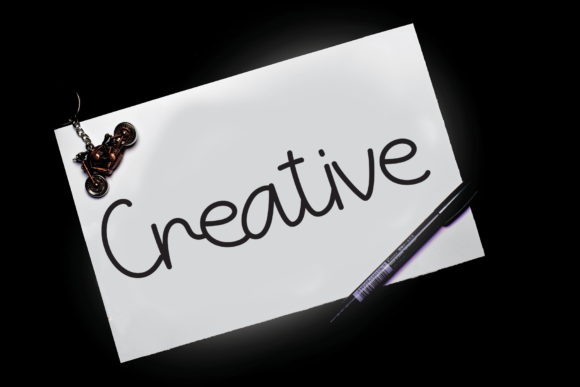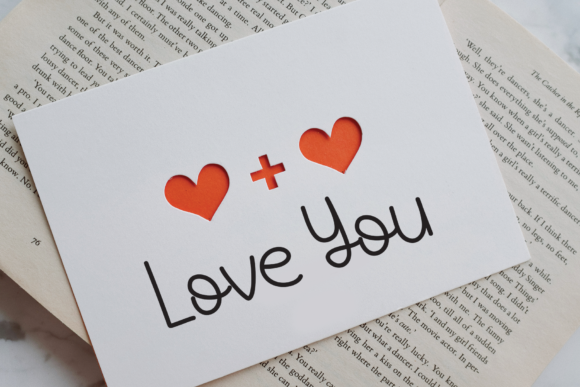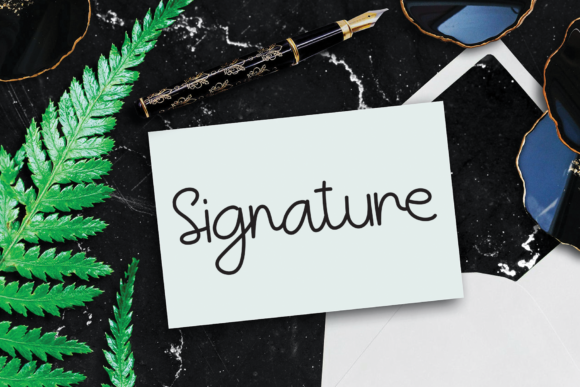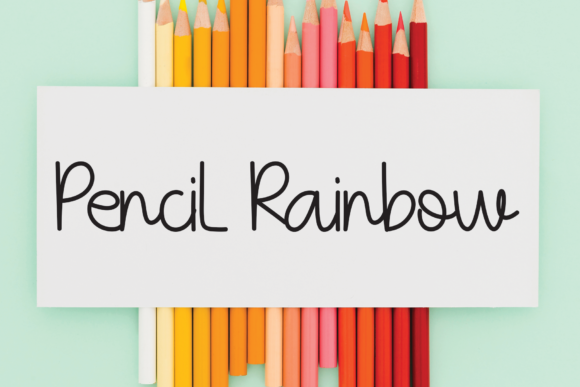
The Charm of Handmade Font: Elevating Designs with Whimsy and Luxury
I’ll never forget the time I was working on a branding project for a high-end boutique, and I just couldn’t find the right font to capture the essence of their luxury products. The client wanted something that exuded elegance, sophistication, and a touch of playfulness. That’s when I stumbled upon the Handmade Font, and it was love at first sight! 💕
This sweet, whimsical, fluid, and thin script font has been a game-changer for my design projects, and I’m excited to share its charm with you. Featuring characters that dance along a baseline, Handmade Font adds a splash of luxury to any design, making it perfect for crafters, designers, and creative hobbyists.
- 💫 Elegant and sophisticated, yet playful and whimsical
- 🎨 Beautifully crafted with attention to detail
- 🌈 Versatile and adaptable to various design projects
- ⚠️ Limited use of uppercase letters, which might require creative workarounds
- 🤔 Some characters may require manual kerning for optimal spacing
The Story Behind Handmade Font
According to the font’s designer, Handmade Font was inspired by the art of traditional calligraphy and the beauty of handwritten scripts. The designer aimed to create a font that would evoke a sense of luxury and sophistication, while still being approachable and playful. The result is a font that feels both high-end and charmingly imperfect.
| Is Handmade Font suitable for body text? | While Handmade Font is beautiful, it’s best suited for headlines, titles, and short paragraphs. Its elegant and cursive nature makes it less suitable for long-form body text. |